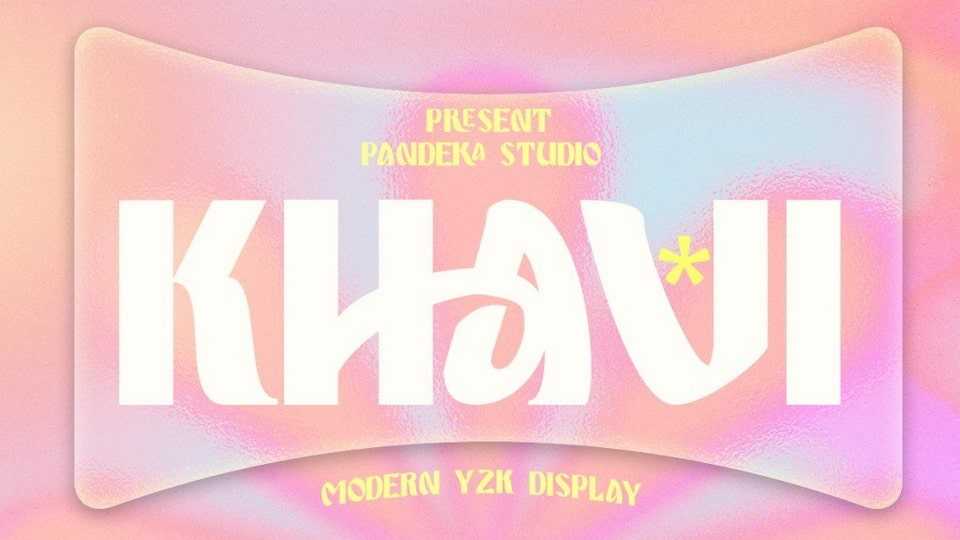
Download Khavi font, a vibrant and stylish sans display font that brings the essence of the y2k era to life. With its sleek lines and captivating gradient covers, Khavi is the perfect choice for your next creative venture